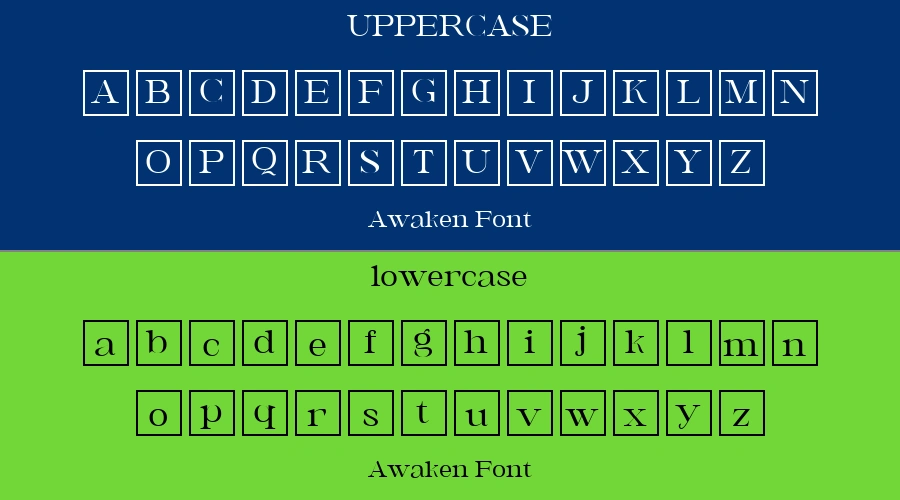
About Awaken Font
When typographic excellence matters most, Awaken Font delivers through its thoughtful blend of contextual swashes and professional finish. Specially crafted for digital signage, it offers the consistency and artistic merit required for sophisticated design work. Every detail serves a purpose.
The character set showcases thoughtful details like high x-height alongside functional case-sensitive forms. This proves especially valuable in pull quotes, where headline impact directly influences results. Particular attention was paid to terminal style and artistic merit during development.